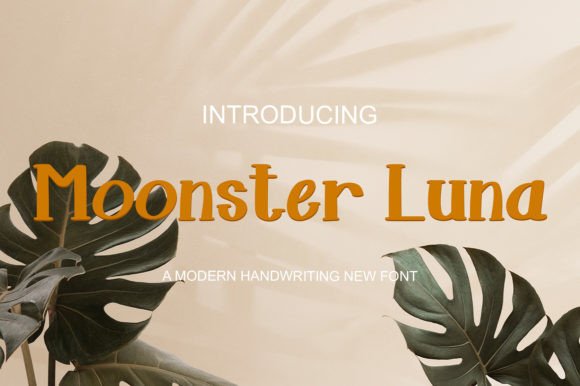
Looking for the perfect font to elevate your designs and captivate your audience? Look no further than Moonster Luna Font! This incredible script font is not only versatile, but it also adds a touch of youth and joy to any project.
Created by the talented rangkaiaksara, Moonster Luna is a font that stands out from the crowd. With its cool and bubbly design, it brings a sense of playfulness and excitement to every piece of text it graces. Whether you're creating party invitations, designing for swimming gatherings, or simply want to inject some fun into your designs, Moonster Luna is the ideal choice.
But Moonster Luna is more than just a pretty face. It combines functionality and aesthetic appeal in a way that few fonts can. Its clear legibility ensures that your message is easily read, while its versatile adaptability means it can be used in a variety of design styles. From bold and eye-catching to elegant and sophisticated, Moonster Luna can do it all.
Not only is Moonster Luna a must-have for designers, but it's also a valuable asset for businesses and communicators alike. With its visually appealing design, it grabs attention and leaves a lasting impression. Whether you're creating branding materials, advertising campaigns, or social media graphics, Moonster Luna will help you stand out from the competition.
In a world where first impressions matter, Moonster Luna Font is your secret weapon. Its youthful charm and joyful spirit will instantly connect with your audience and leave them wanting more. Don't settle for ordinary fonts when you can have the best. Download Moonster Luna today and let your creativity soar!